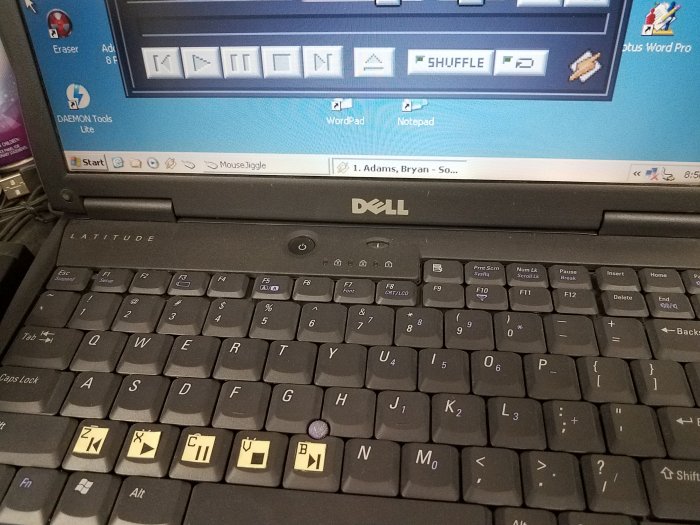
PROJECT: Non-permanent keyboard shortcut button labels for an old Pentium III laptop used as an MP3 player. See Comments Section below for instructions.
PROJECT: Non-permanent keyboard shortcut button labels for an old Pentium III laptop used as an MP3 player.
1. To reduce trial-and-error attempts, print the desired FontStruct shortcut buttons at size ~29 on a piece of printer paper first.
2. Place the adhesive portion of the Post-it™ note(s) *on top of* the recently-printed button labels; the printer paper is now both a carrier & release liner.
3. Reprint the FontStruct shortcut buttons again, this time over the adhesive portions of Post-it™ note(s) stuck to the printer paper.
4. Apply clear adhesive cellophane tape over the Post-it™ note(s) for protection.
5. Remove the Post-it™ note(s) from the printer paper backing.
@JeycoMonge - This font is considered complete (as is the keyboard, which I still use at work, even this afternoon!). It did what I needed: 5 letters that had media player symbols on them to control WinAmp's music player. You can see the greatly-expanded sequel font here:
PROJECT: Non-permanent keyboard shortcut button labels for an old Pentium III laptop used as an MP3 player.
1. To reduce trial-and-error attempts, print the desired FontStruct shortcut buttons at size ~29 on a piece of printer paper first.
2. Place the adhesive portion of the Post-it™ note(s) *on top of* the recently-printed button labels; the printer paper is now both a carrier & release liner.
3. Reprint the FontStruct shortcut buttons again, this time over the adhesive portions of Post-it™ note(s) stuck to the printer paper.
4. Apply clear adhesive cellophane tape over the Post-it™ note(s) for protection.
5. Remove the Post-it™ note(s) from the printer paper backing.
6. Cut the shortcut buttons to size.
7. Affix the shortcut buttons to the keyboard.
That method that can be used to print key labels is not limited to this. You can print key labels of a custom layout if you want to.
In that image of the font in the keyboard its likely! You're going to put more later or more glyphs?
@JeycoMonge - This font is considered complete (as is the keyboard, which I still use at work, even this afternoon!). It did what I needed: 5 letters that had media player symbols on them to control WinAmp's music player. You can see the greatly-expanded sequel font here:
Media Player Buttons
which has all letters (Aa-Zz) & numbers (0-9), plus you can place the media player symbols in ANY position you would like. :^)